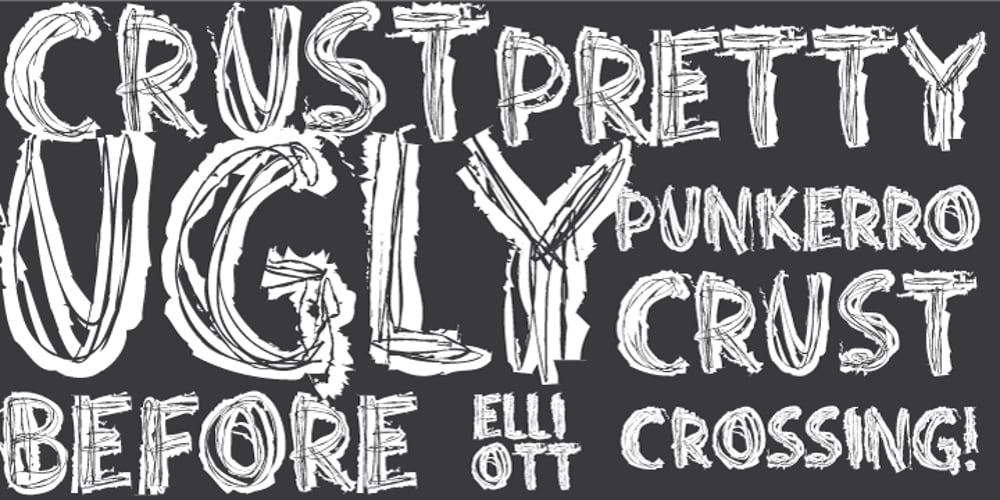
Punkerro Crust Font Family was designed by Dusan Jelesijevic and published by Tour De Force. Punkerro Crust contains 1 styles and family package options. Punkerro Crust is acyl written type inspired with Crust music. Looks like mixture of couple of printing techniques into one > etching + intaglio + mezzotint.